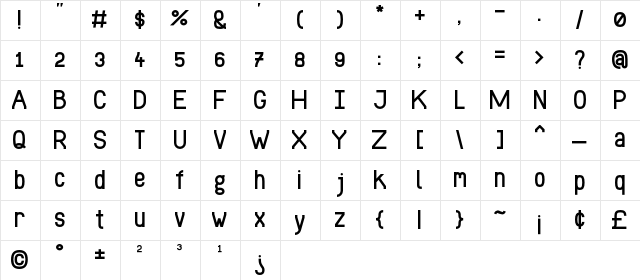
DST Regular
Design Context for DST Typeface
DST offers clean, dependable letterforms without strong stylistic allegiance, making it a practical choice for designers who need flexibility.